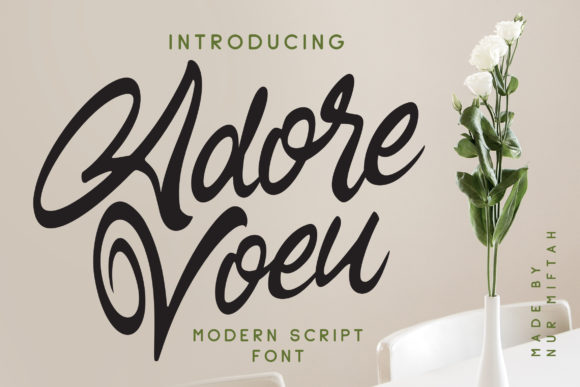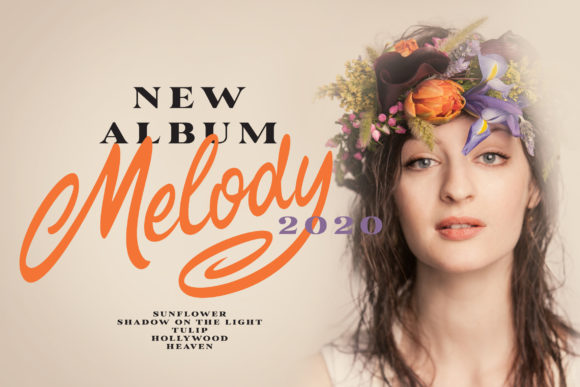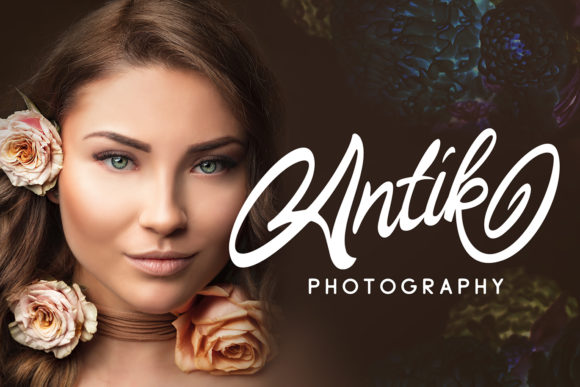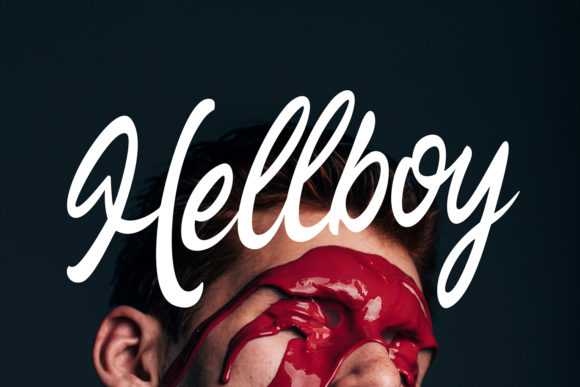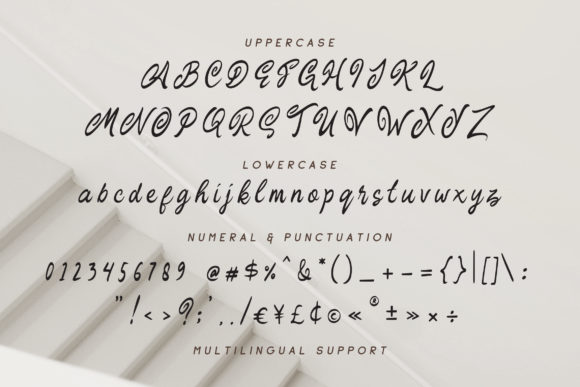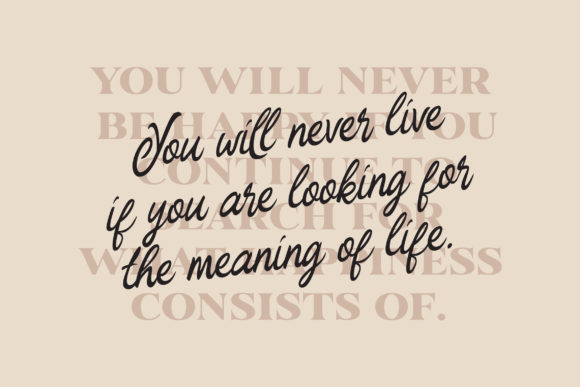
Embracing the Art of Typography: Adore Voeu Font
There’s something magical about the moment when an idea strikes, and you know exactly how to bring it to life. For designers, this spark of creativity often begins with the perfect font. It’s that instant when the words on the page start to dance, and the message becomes a work of art. And that’s precisely what Adore Voeu Font is designed to do – deliver any message with confidence and style.
Adore Voeu Font is a modern and unique script that stands out from the crowd. Its distinct style makes it perfect for designers who want to add a touch of elegance and sophistication to their projects. Whether you’re working on a logo, a wedding invitation, or a branding campaign, Adore Voeu Font is sure to make your work stand out. As a valuable asset for designers, it offers endless possibilities for creativity and self-expression.
Adore Voeu Font Key Features
- Font Style: Adore Voeu is a modern, elegant script font designed for elegant and sophisticated typography.
- Unique Characteristics: Adore Voeu features a unique, flowing script style with subtle flair and elegance, making it perfect for wedding invitations, luxury branding, and high-end designs.
- Font Language Support: Supports multiple languages, including English, French, Spanish, German, Italian, Portuguese, and many more, making it a versatile font for international designs.
Adore Voeu Font Review
Overall, I think Adore Voeu Font is a lovely, elegant font that’s perfect for certain designs. ✨ Here are a few things that work well:
- Highly legible, making it suitable for body text and longer passages.
- Classic, vintage feel that’s reminiscent of high-end fashion magazines or luxury brands.
- Extensive character set, including international characters and ligatures.
However, I do have a few concerns about this font. ⚠️ These include:
- It may be a bit too ornate for some designs, which could make it feel overly busy or distracting.
- Lack of italic and bold font weights, which might limit its versatility.
- Some characters, such as the lowercase ‘e’, may be a bit too stylized for certain uses.
Overall, I think Adore Voeu Font is a solid choice for designers who want to add a touch of elegance and sophistication to their projects. While it’s not without its limitations, it’s a beautiful font that’s worth considering for the right designs.
Tips and Use Cases
For optimal results, use Adore Voeu Font in headings or titles to create a sense of elegance and sophistication. This font is ideal for wedding invitations, luxury brand logos, or high-end product packaging.